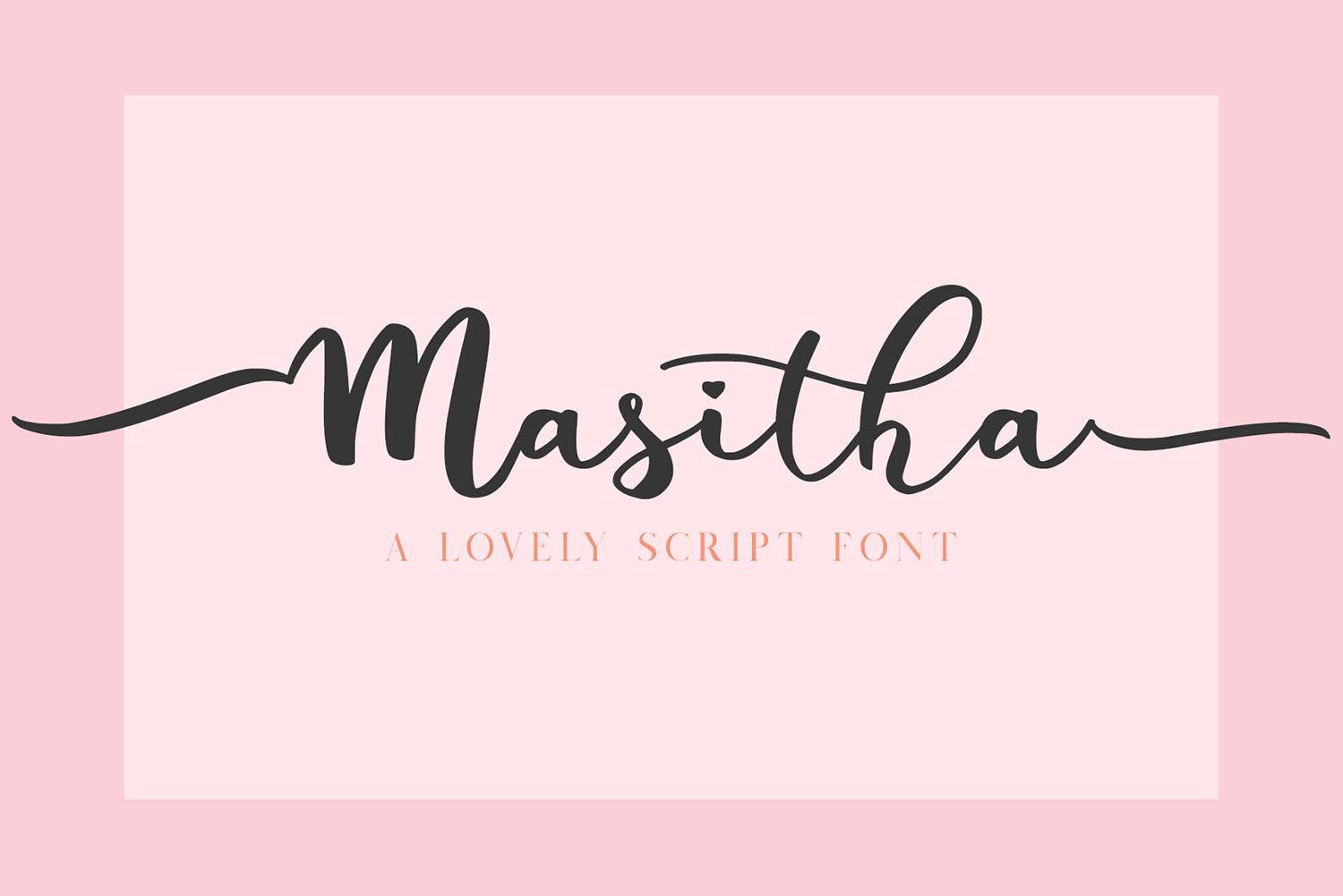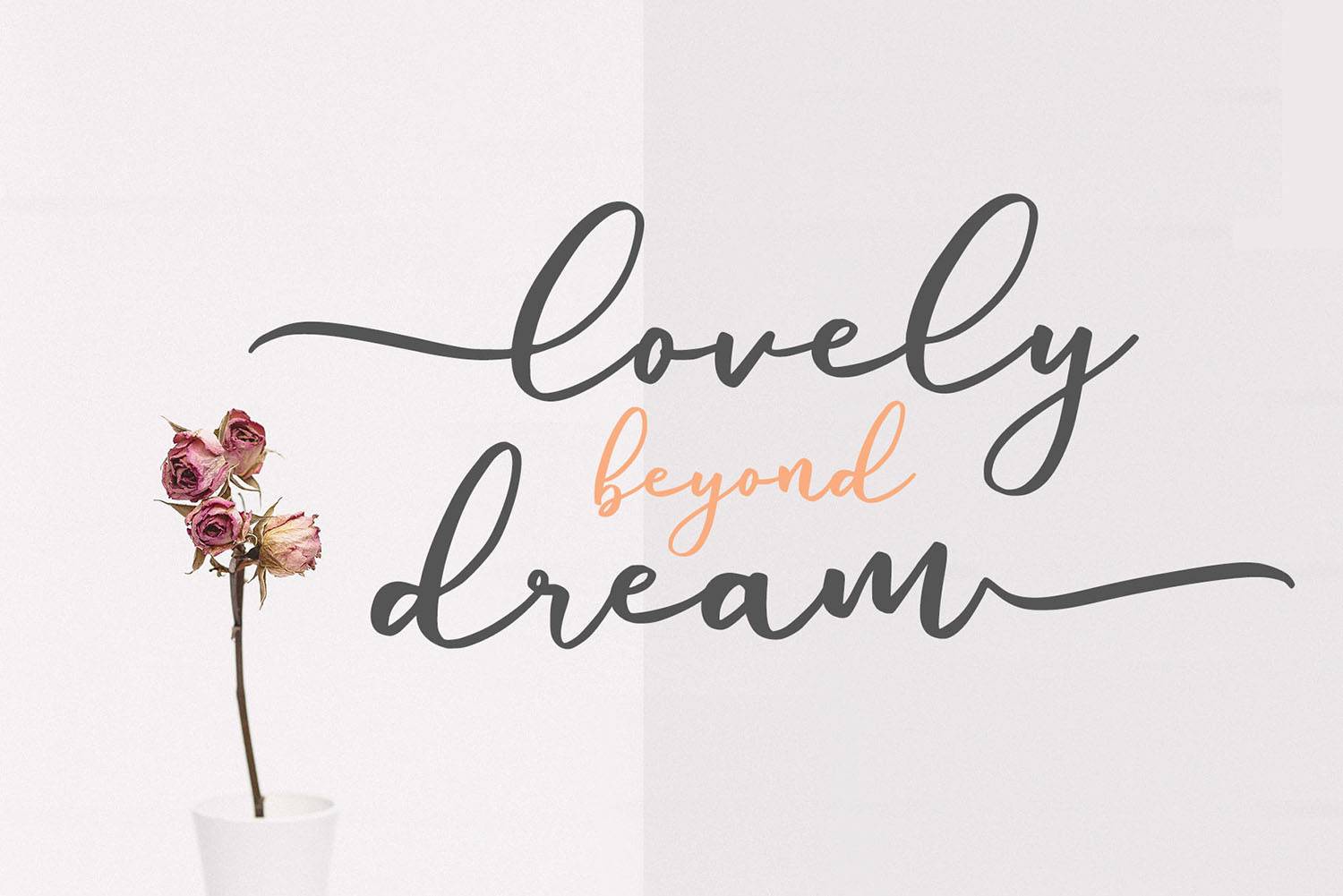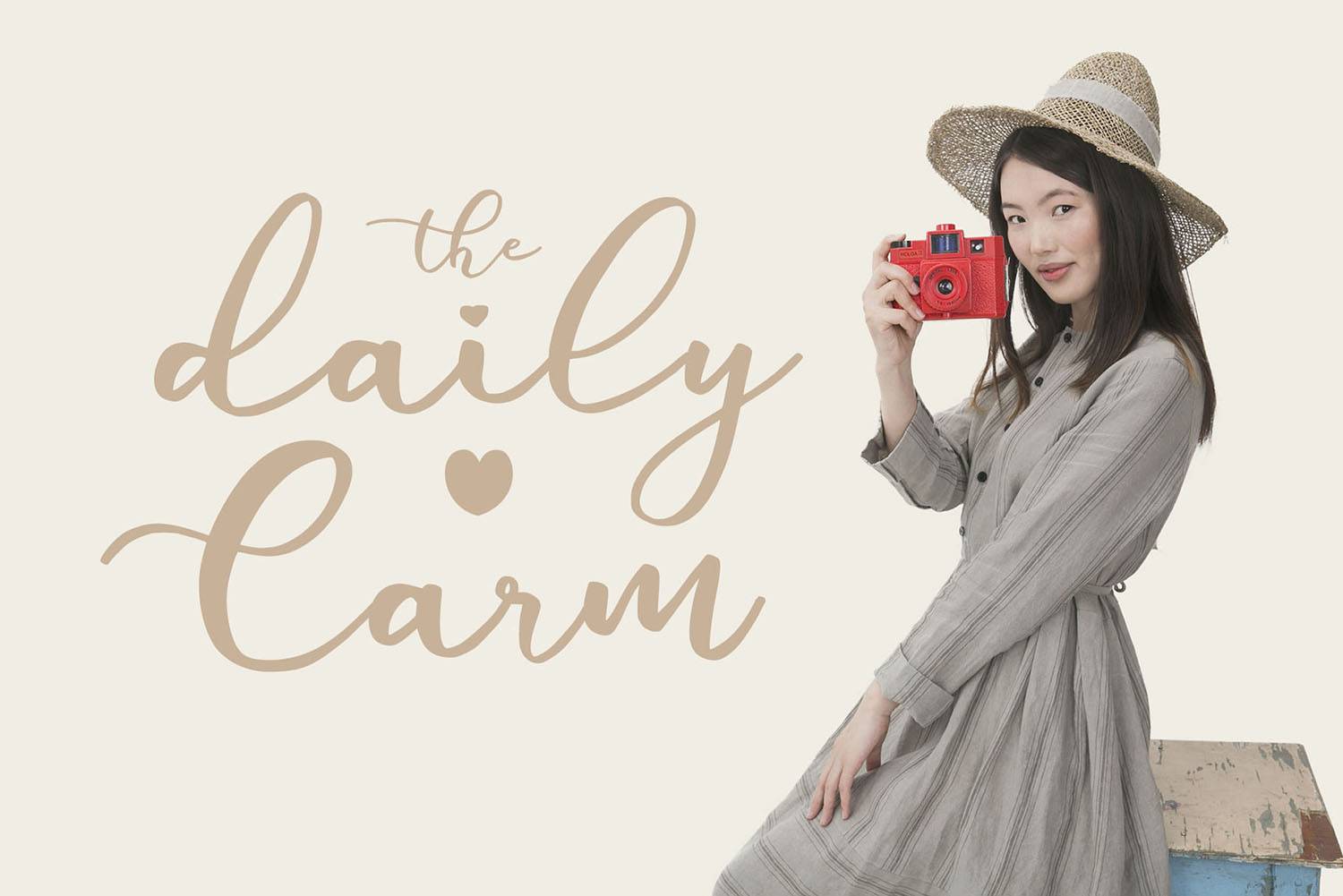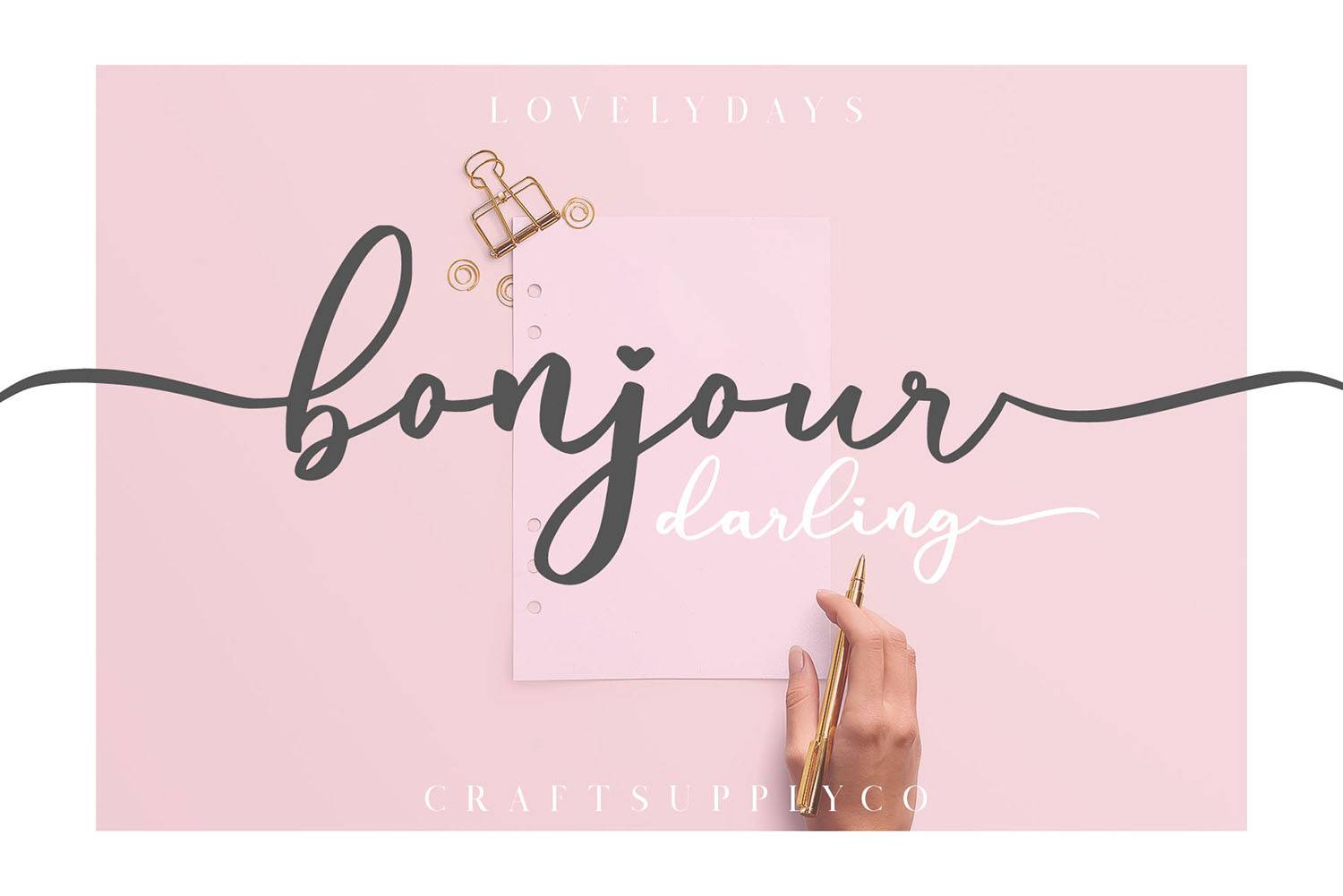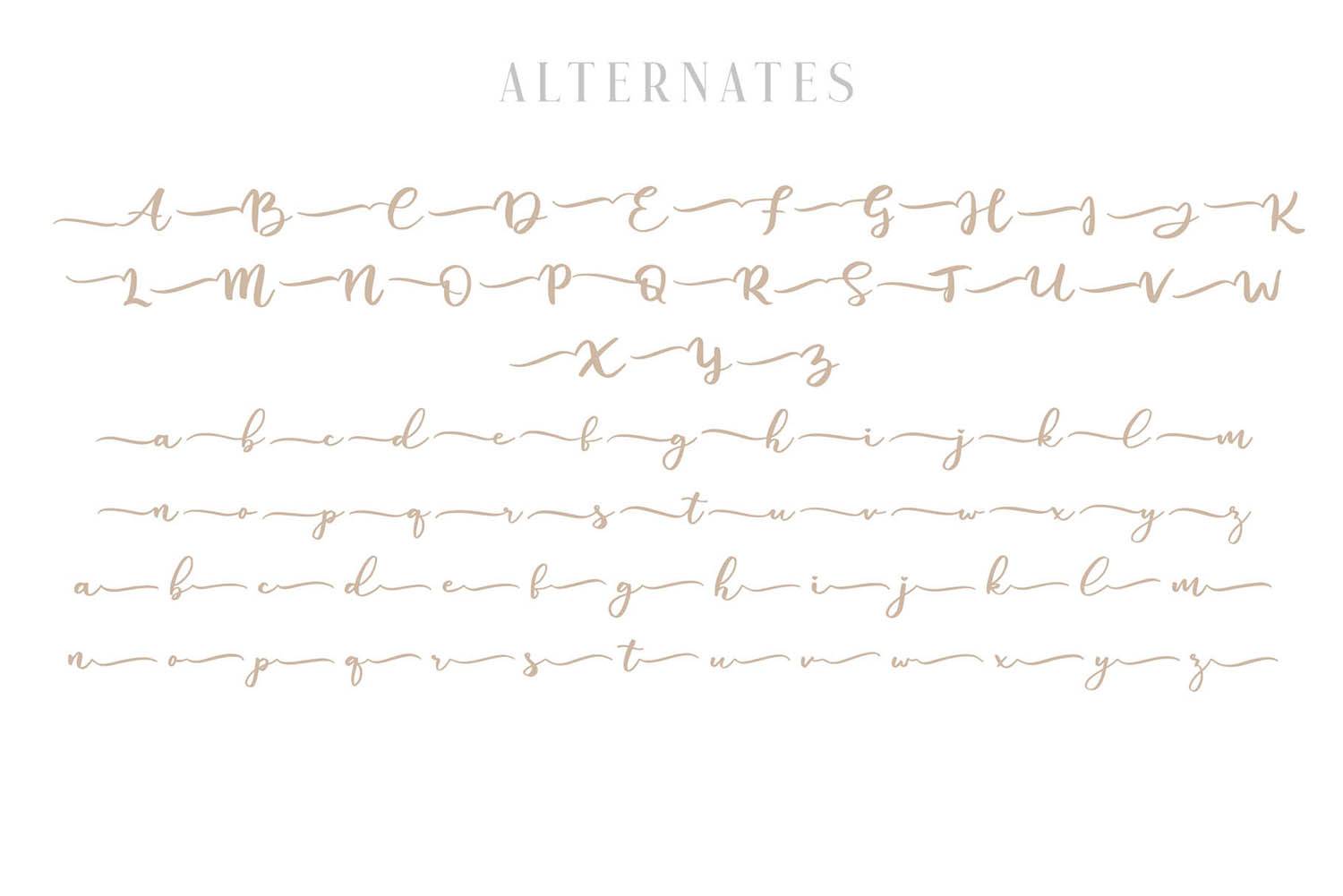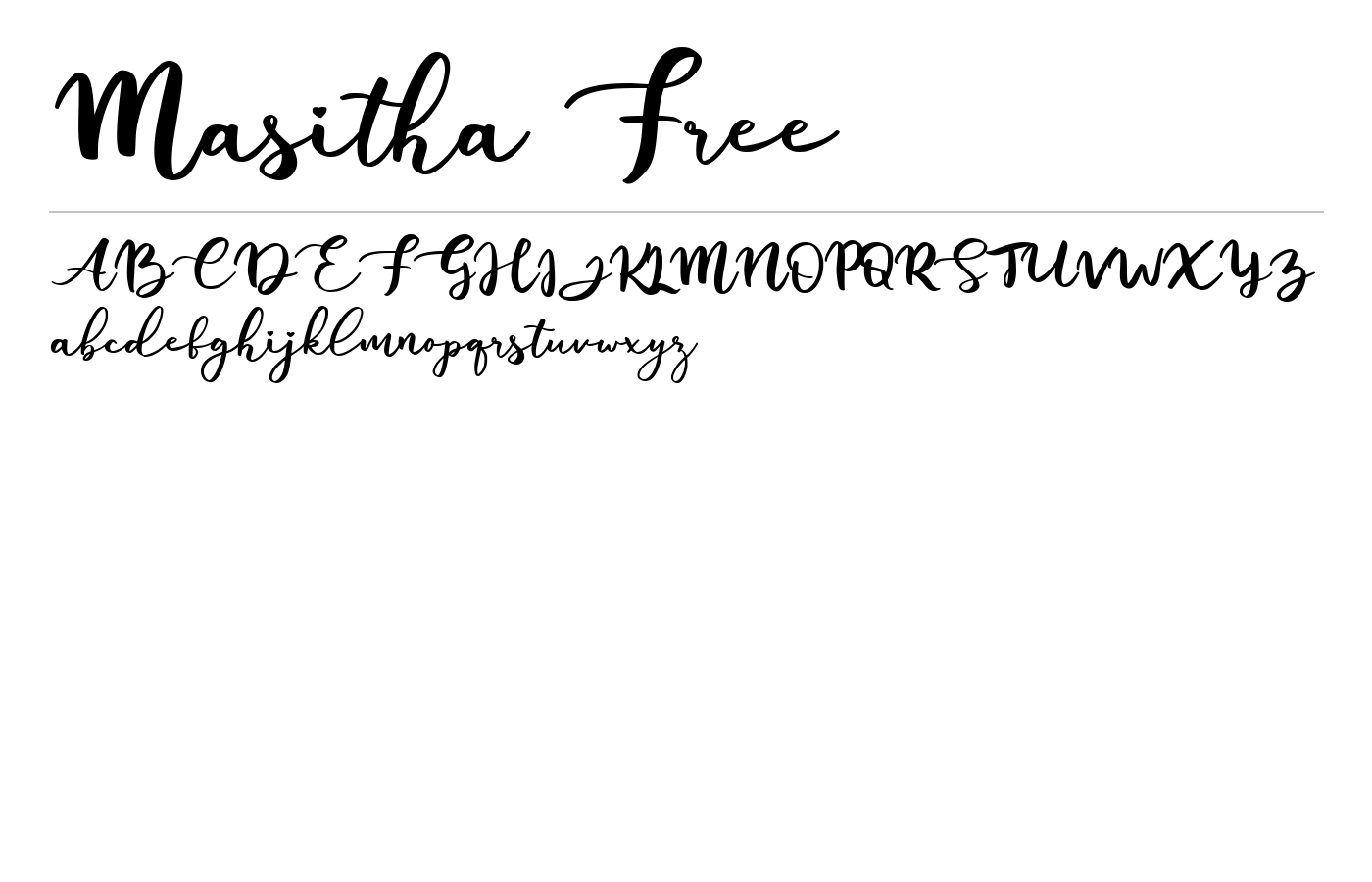
Masitha is a stylish script font featuring a lively, hand-drawn feel with smooth, flowing strokes and playful letterforms. Its moderate weight and elegant curves make it perfect for creative and friendly designs, such as invitations, logos, and branding that seek a personal, artistic touch. This font works well in headlines and decorative uses where a warm and approachable vibe is desired.
Masitha Font
About Masitha Font
| Font family | Masitha Font |